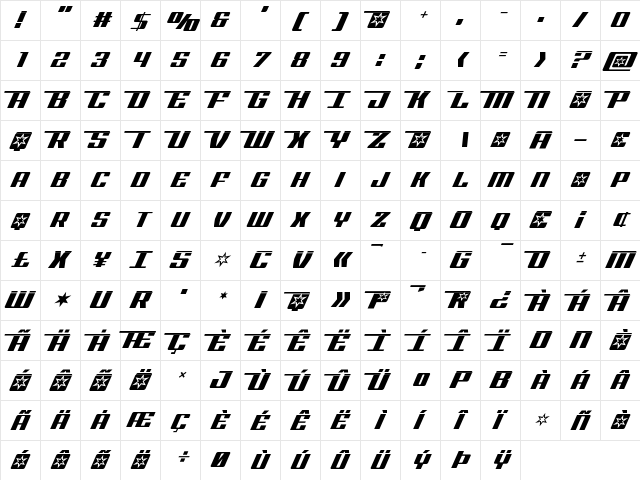
Rocket Pop Laser Regular
Design Context for Rocket Pop Laser Typeface
Rocket Pop Laser is a composed and adaptable typeface that performs quietly and consistently across a wide range of design contexts.